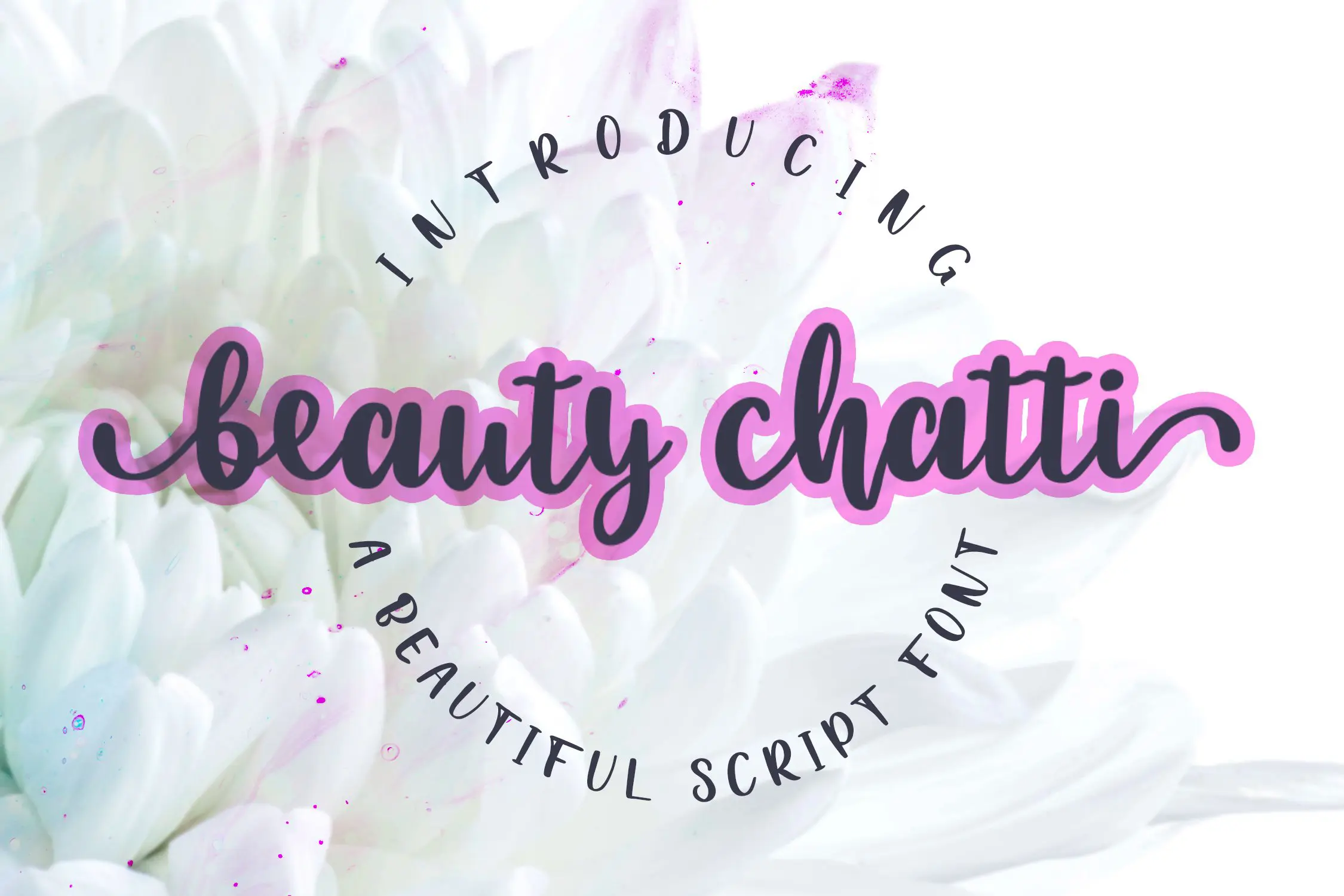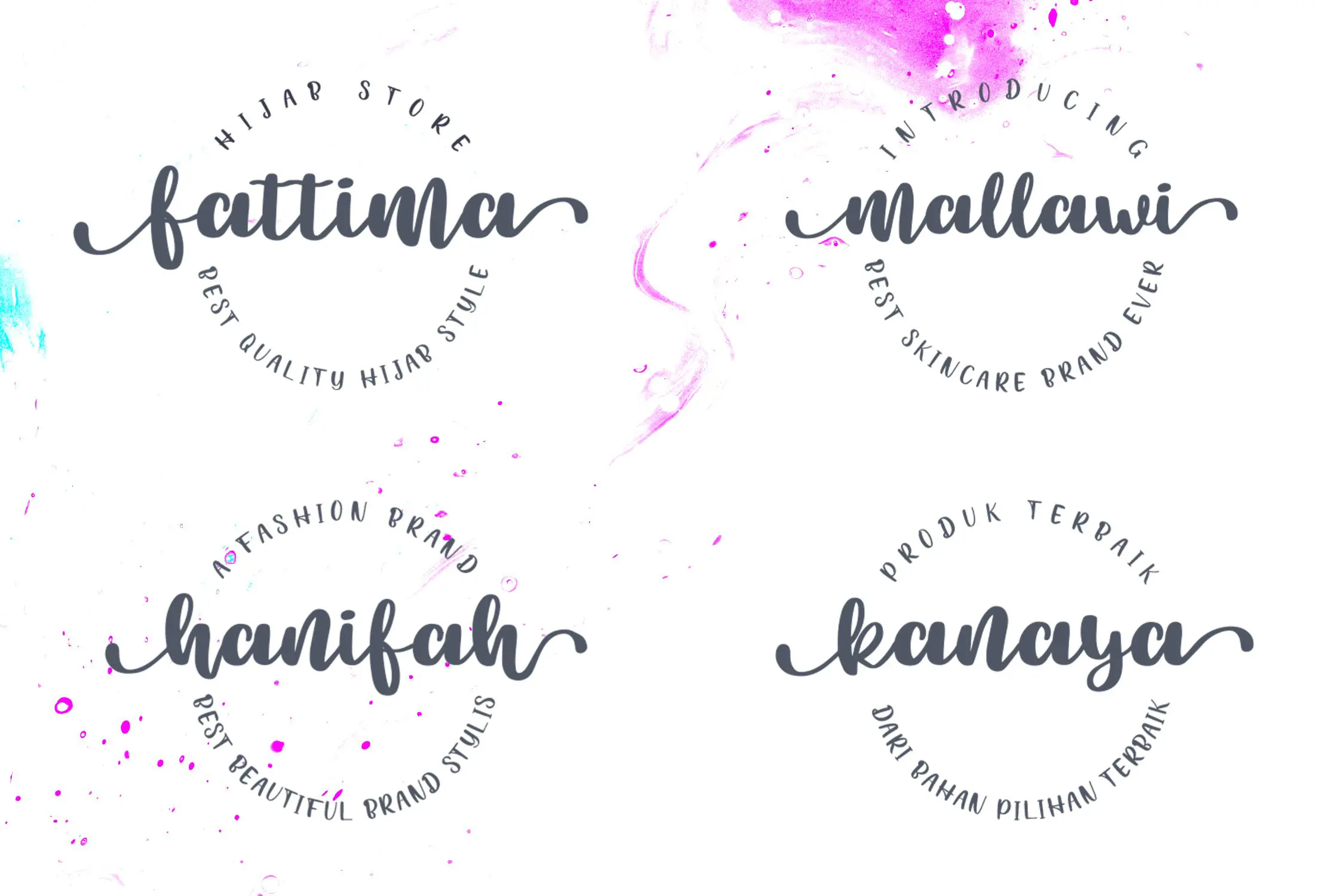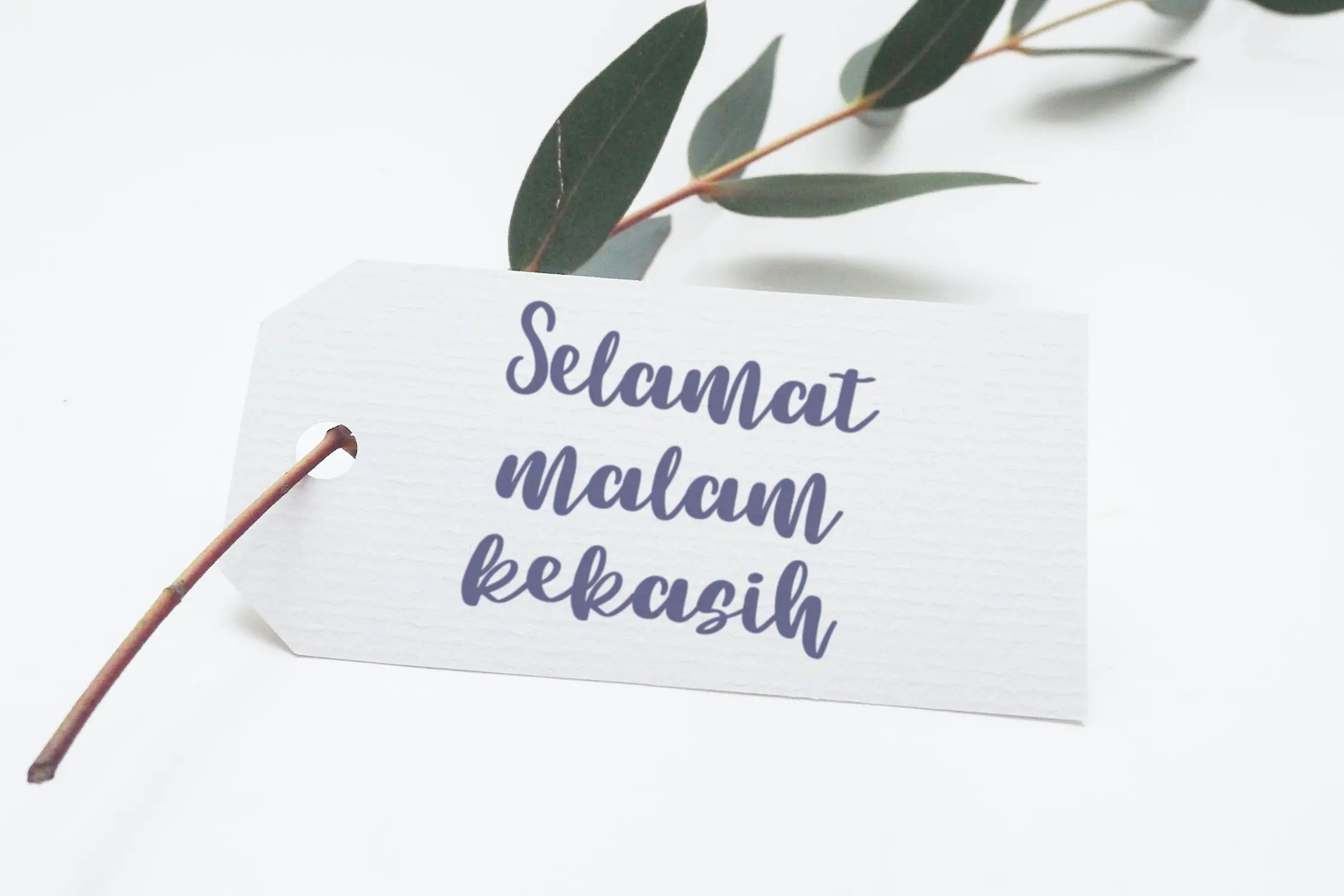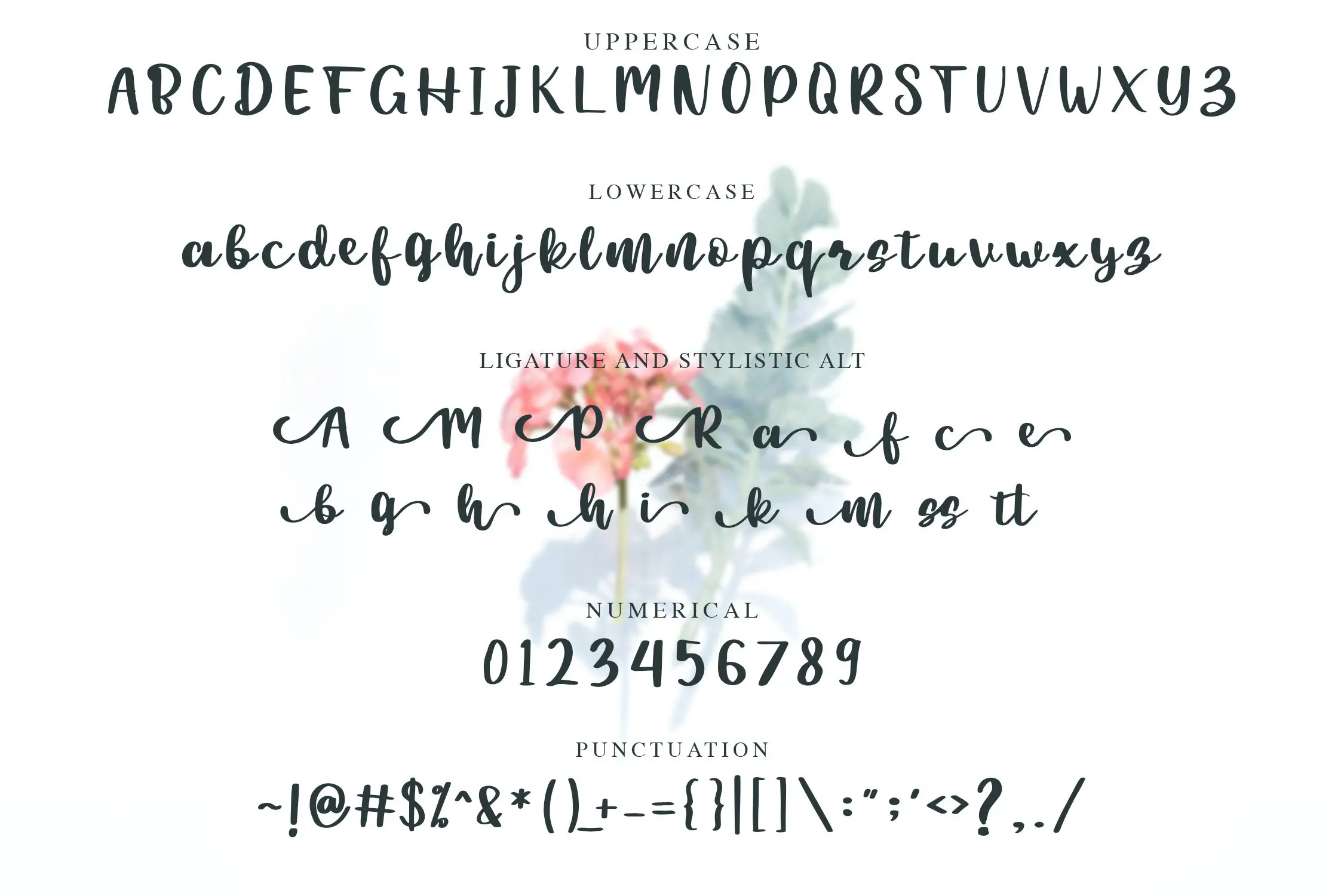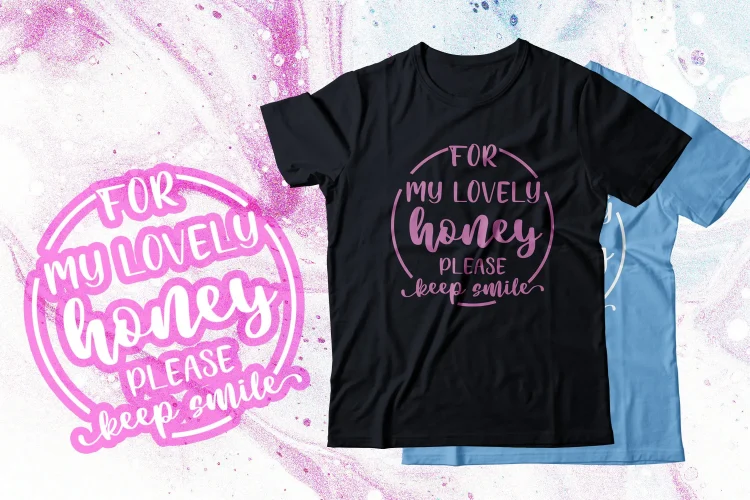
Beauty Chatti is a beautiful script font with feminine style. Is a font style that is made with scratches and curvature shapes font characters are very beautiful. Can be applied to support the graphic appearance of the product to be more attractive and unique. This font is suitable for making previews and covers, logo designs, shirt designs and other graphic needs. Made with hand scratches directly and then processed into font processing software.We are very grateful for your visit and download for this font
Beauty Chatti font with uppercase characters A-Z, lowercase characters a-z, Numerical character, punctuation, stylistic alternate and ligature characters that enhance this font shape.